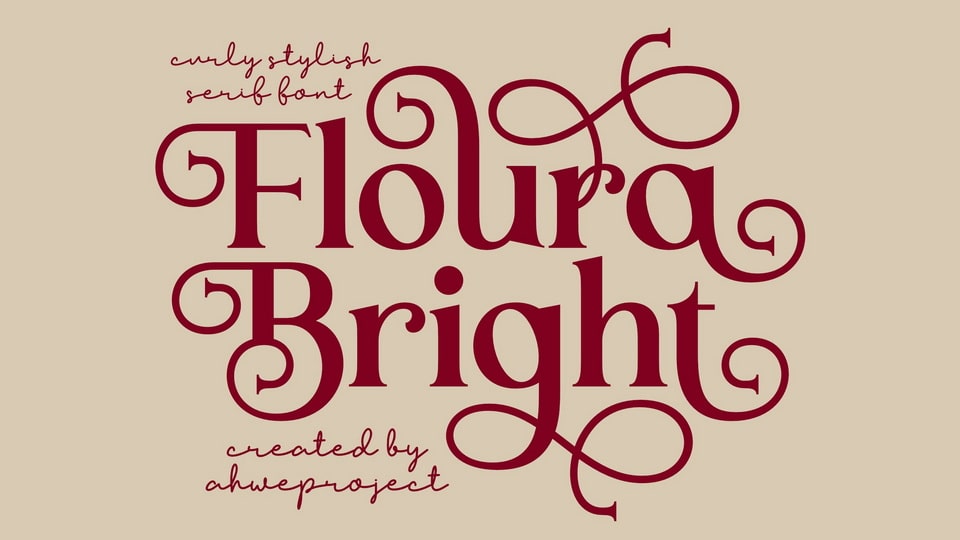
Download Floura Bright font, a curly and stylish serif typeface that combines elegance and creativity in one design. Its swirly details and bold structure make it perfect for projects that require a touch of sophistication and charm.